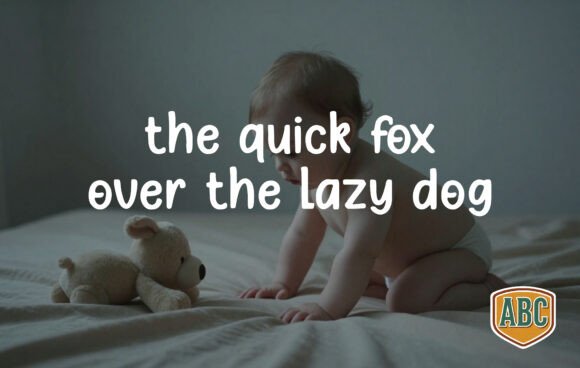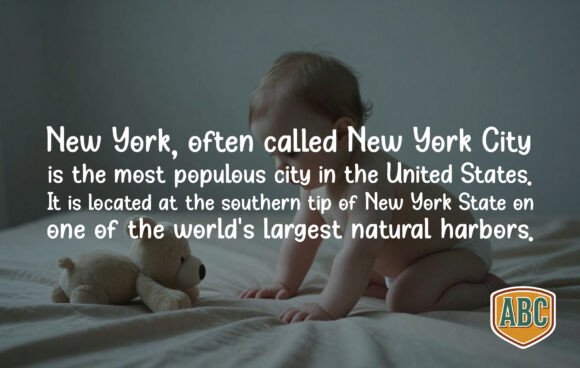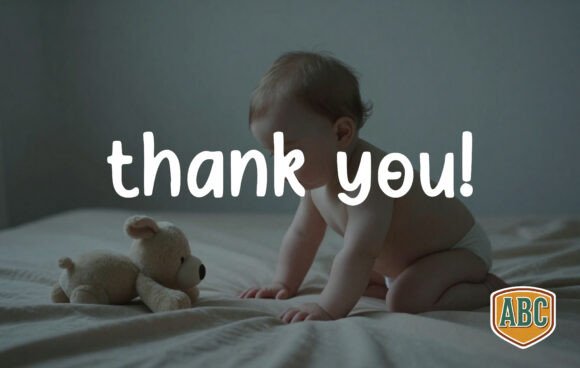
Introduction to Baby Play Font
As a designer, there’s nothing quite like the thrill of bringing a creative project to life. For me, it’s often the smallest details that make the biggest impact – like the perfect font to capture the essence of a brand or message. Recently, I stumbled upon the delightful Baby Play Font, and I knew I had to share it with fellow designers. This charming handwriting font is a game-changer for anyone looking to add a touch of warmth and playfulness to their designs.
With its friendly baseline and soft, chunky letterforms, the Baby Play Font is an instant mood-booster. Its smooth, simple strokes make it incredibly legible, while its casual, slightly uneven appearance adds an authentic, hand-drawn appeal that feels personal and approachable. Whether you’re working on a children’s book, educational materials, or playful product packaging, this versatile typeface is sure to bring a smile to your face and your client’s.
Key Features of Baby Play Font
- High-quality design: Baby Play Font offers a unique and playful design perfect for creative projects.
- Transparent background: The font’s transparent background allows for seamless integration into any design, making it ideal for creative projects.
- High-resolution design: With a resolution of 300 DPI, Baby Play Font is suitable for printing and digital use.
- Unique characteristics: The font features a cute and playful style, making it perfect for baby-related products, children’s books, and other creative projects.
Honest Review: Baby Play Font
As a designer, I’m always on the lookout for high-quality design resources to elevate my creative projects. Recently, I stumbled upon the Baby Play Font, and I’m excited to share my honest review with you.
- The transparent background option allows for seamless integration into various design elements.
- The font is well-designed, with a unique and playful style that’s perfect for kid-related projects.
- The font is not as extensive as some other font libraries, with a limited character set.
- The font may not be suitable for more formal or professional projects, due to its playful nature.
Overall, I’m impressed with the Baby Play Font. It’s a great addition to any designer’s toolkit, especially for creative projects involving kids or a playful tone. While it has some limitations, I believe it’s a valuable resource for designers looking for a high-quality, free download.
The Baby Play Font is a versatile design resource that can be used in a variety of creative projects, including children’s party invitations, nursery decorations, and baby-themed products. It’s also a great resource for designers looking to add a playful touch to their designs.